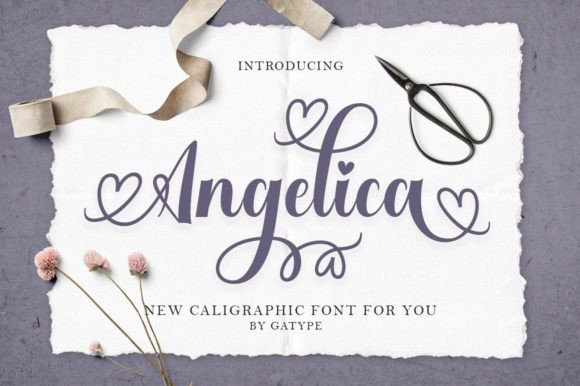
The Designer’s Dream Font: Angelica
I’ll never forget the time I was working on a wedding invitation project, and my client asked for a font that was ” elegant, yet playful, and had a personal touch.” I scoured the internet, tried countless fonts, but nothing seemed quite right. That was until I stumbled upon Angelica, a beautiful modern handwritten font that stole my heart. In this article, I’ll share my experience with Angelica, its features, and how to make the most of it in your designs.
First Impressions: What I Love About Angelica
Angelica is a stunning handwritten font that’s perfect for a wide range of design projects, from invitations and logos to social media posts and product packaging. Here are some things I love about it:
- ✨ Beautifully crafted letters with a modern, elegant feel
- 🎉 Highly versatile and adaptable to different design styles
- 💕 Perfect for projects that require a personal, handwritten touch
The Not-So-Perfect: Small Quirks and Limitations
While Angelica is an amazing font, it’s not without its quirks. Here are a few things to keep in mind:
- 🤔 Some users may find the font a bit too slender for certain design applications
The Story Behind Angelica: Designer Inspiration
Angelica was designed with the intention of creating a beautiful, modern handwritten font that captures the essence of personal, elegant writing. The designer aimed to create a font that’s both versatile and stylish, perfect for a wide range of design applications. While we can’t know the designer’s exact inspiration, it’s clear that Angelica was crafted with love and attention to detail.
| Is Angelica suitable for body text? | While Angelica is a beautiful font, it’s best suited for display text and headings. For body text, you may want to choose a font with better legibility and readability. |